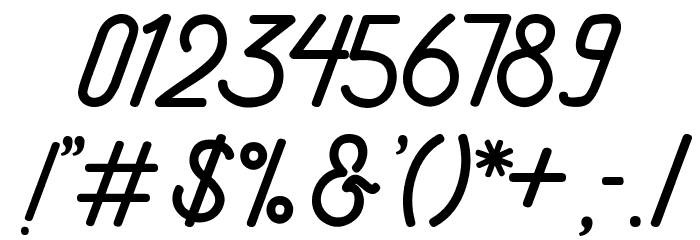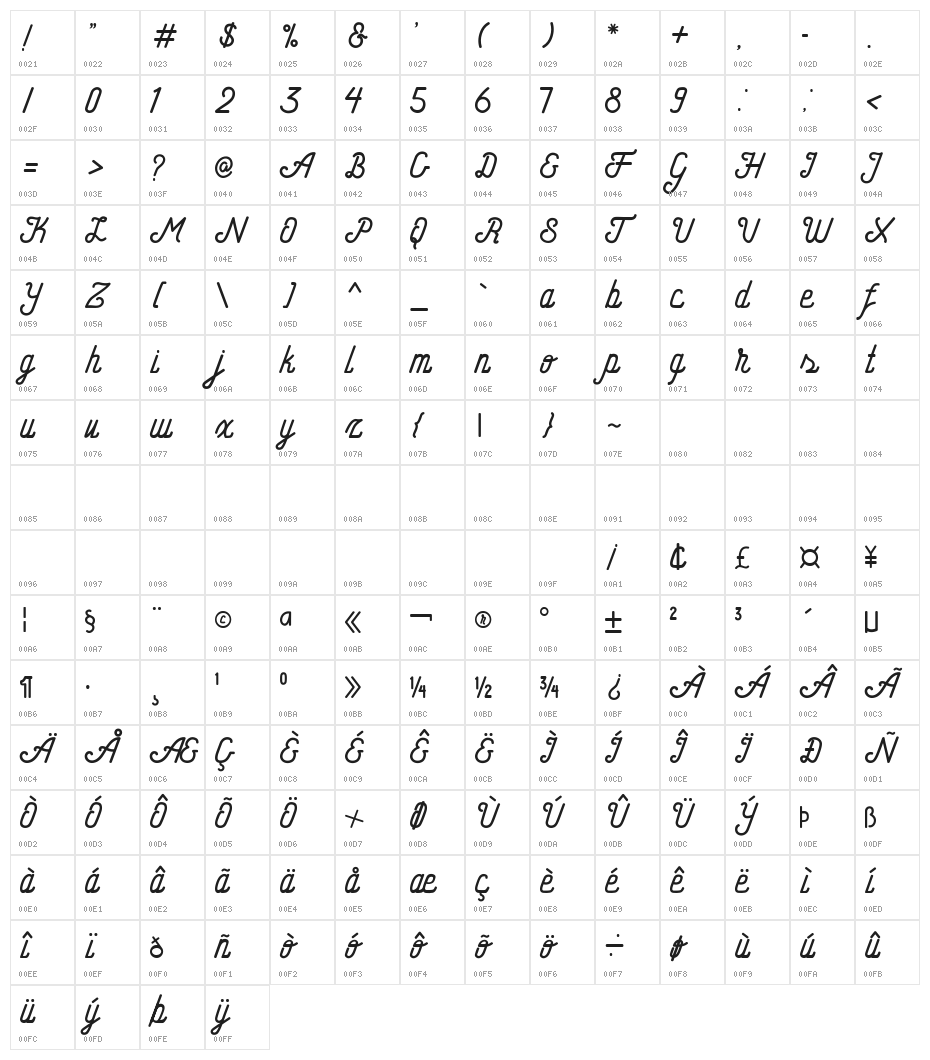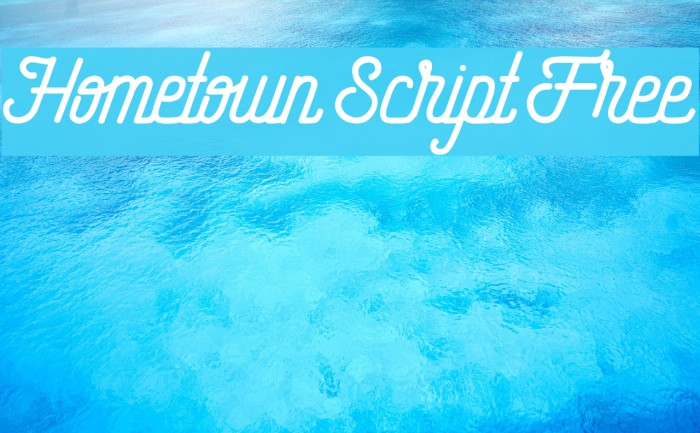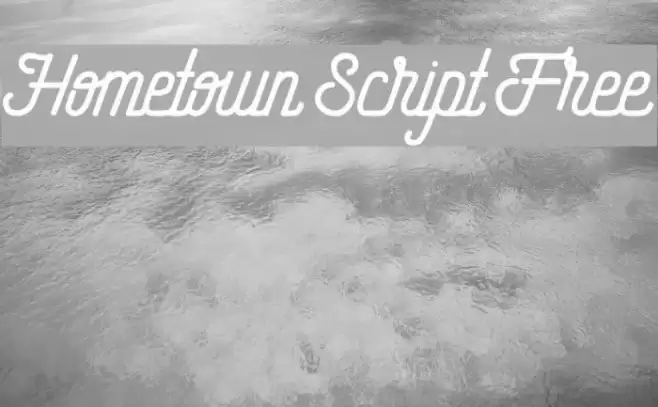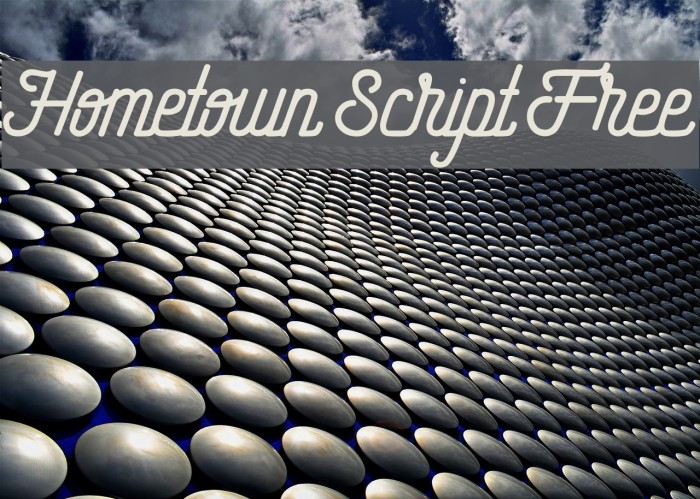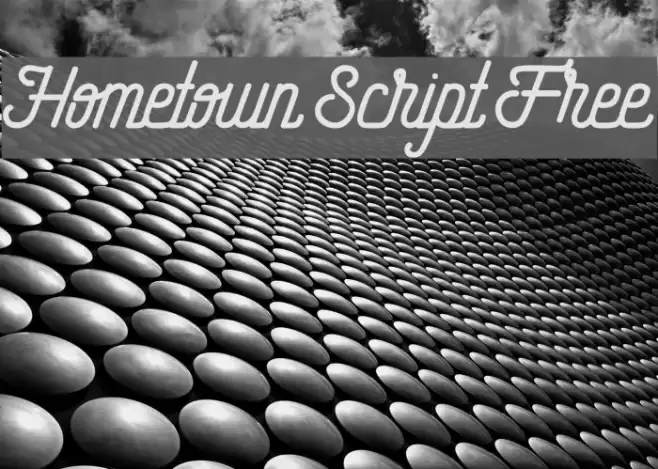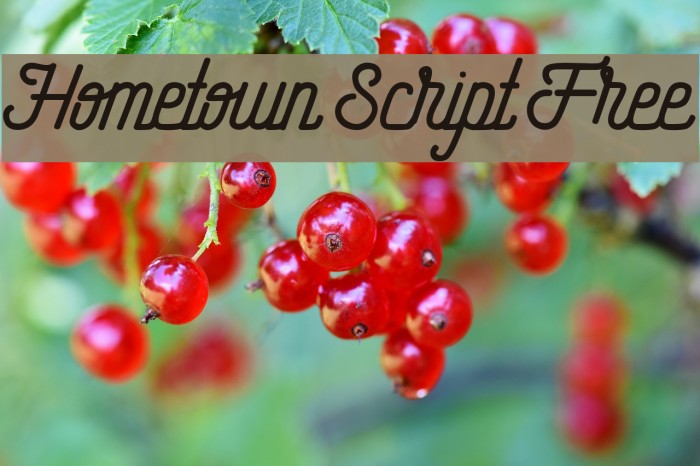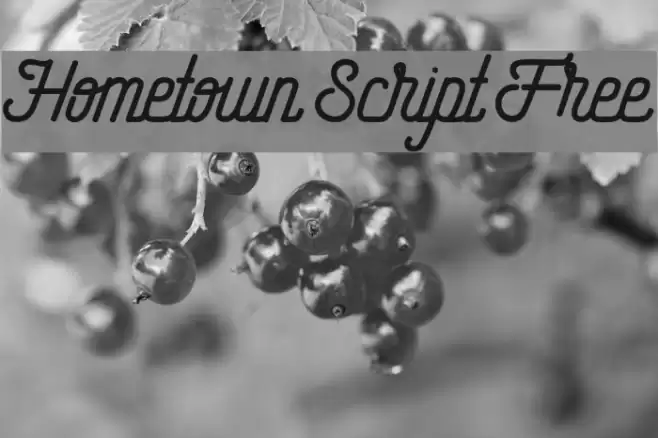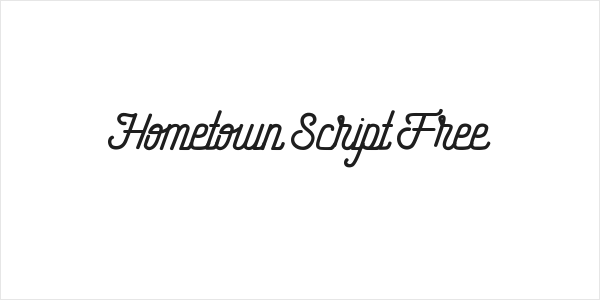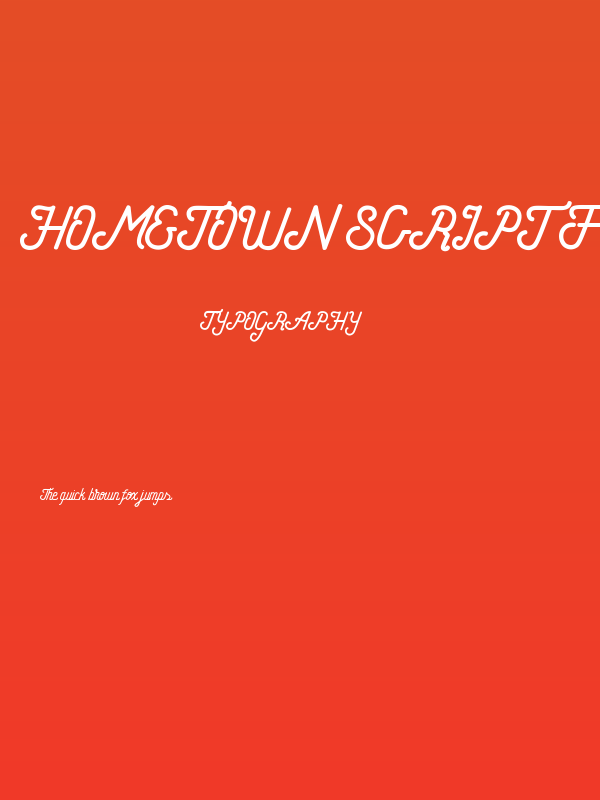
Hometown Script Free Font
Hometown Script Free Description
This font features a flowing, cursive style that mimics elegant handwriting. The letters are interconnected, creating a seamless and fluid appearance. The uppercase letters are slightly more ornate, while the lowercase letters maintain a consistent and smooth flow. Numbers and special characters are designed to complement the script style, maintaining the same fluidity and elegance. The overall look is both sophisticated and approachable, making it suitable for a variety of creative projects.